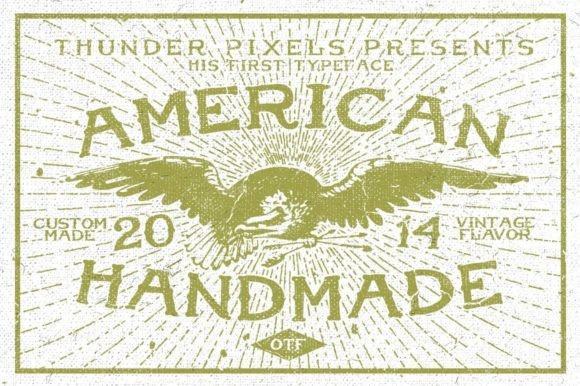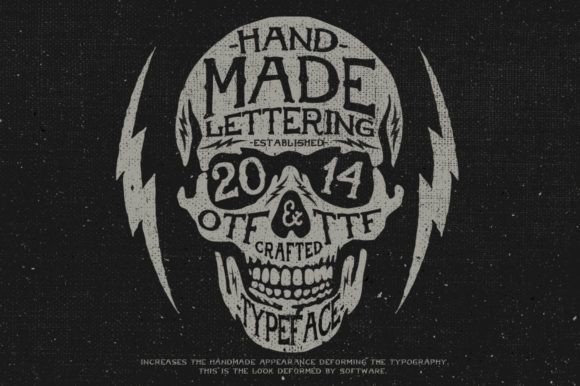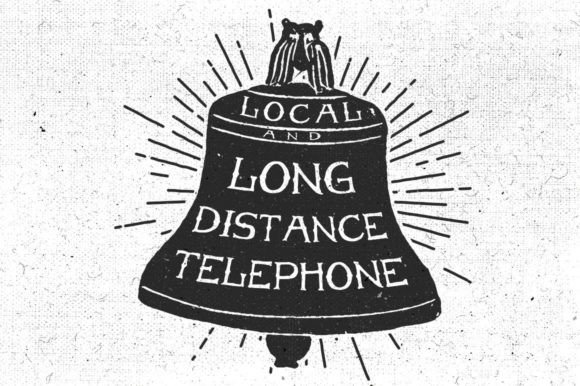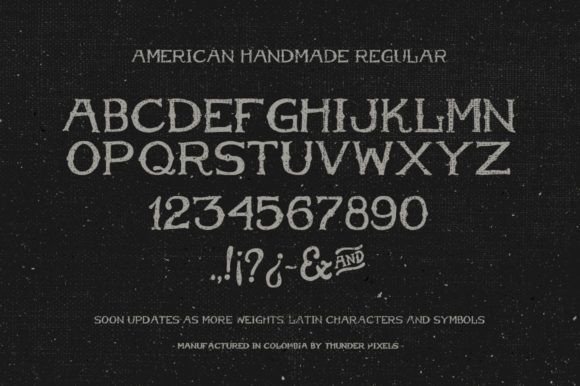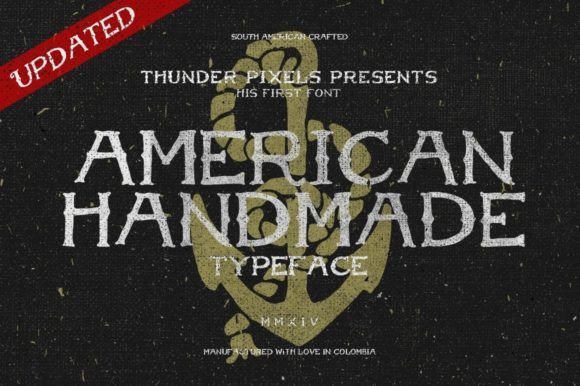
Introducing American Handmade Font: Elevate Your Designs with a Vintage Twist
Are you a designer or crafty enthusiast looking for a unique font to add a touch of nostalgia to your creations? Look no further than the American Handmade Font, a cool, vintage-style display font that’s sure to become an incredible asset to your font library. With its distressed, worn-in look, this font is perfect for adding a dash of character to any project, from branding and advertising to crafting and DIY tutorials.
The Charm of American Handmade Font
American Handmade Font boasts a distinctive, hand-crafted aesthetic that’s reminiscent of classic American signage and typography. Its rugged, vintage vibe is perfect for evoking a sense of nostalgia and timelessness, making it ideal for designs that require a touch of warmth and personality. Whether you’re creating a logo, poster, or social media graphic, this font is sure to add a dash of charm and character to your work.
Key Features of American Handmade Font
- Unique, hand-crafted design: Each letter has been carefully crafted to create a distinctive, worn-in look that’s perfect for adding a touch of vintage charm to your designs.
- Distressed texture: The font features a subtle distressed texture that gives it a worn, aged appearance.
- Versatile: American Handmade Font is perfect for a wide range of design applications, from display text to logos and branding.
- Easily readable: Despite its distressed texture, the font remains highly legible, making it perfect for use in a variety of contexts.
How to Use American Handmade Font in Your Designs
American Handmade Font is incredibly versatile, and can be used in a wide range of design applications. Here are just a few ideas to get you started:
- Branding and logos: Use American Handmade Font to create a unique, eye-catching logo that sets your brand apart.
- Posters and flyers: Add a touch of vintage charm to your posters and flyers with this distinctive font.
- Social media graphics: Use American Handmade Font to create eye-catching social media graphics that stand out from the crowd.
- Crafting and DIY tutorials: Add a personal touch to your crafting and DIY tutorials with this charming font.
Tips for Getting the Most Out of American Handmade Font
To get the most out of American Handmade Font, here are a few tips to keep in mind:
- Experiment with different colors: American Handmade Font looks great in a variety of colors, from bold and bright to muted and pastel.
- Use it sparingly: Because of its distinctive design, American Handmade Font is best used sparingly to add emphasis and character to your designs.
- Pair it with other fonts: American Handmade Font pairs well with a variety of other fonts, including sans-serif and serif fonts.
American Handmade Font is a unique and versatile font that’s perfect for designers and crafty enthusiasts looking to add a touch of vintage charm to their creations. With its distressed, worn-in look and highly legible design, this font is sure to become an incredible asset to your font library. So why wait? Download American Handmade Font today and start elevating your designs with a touch of nostalgia and character.